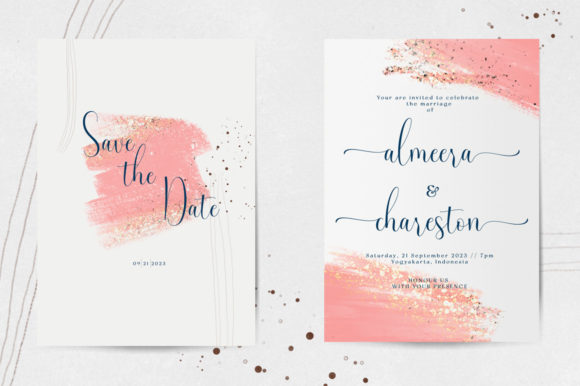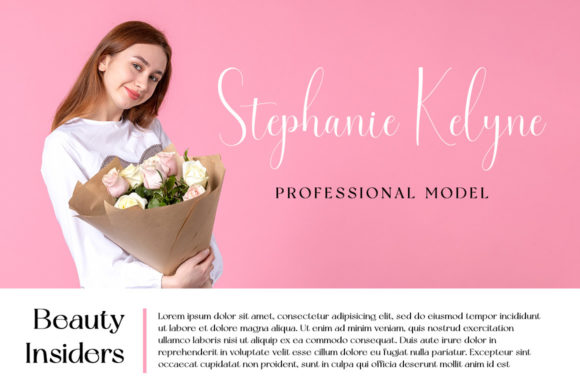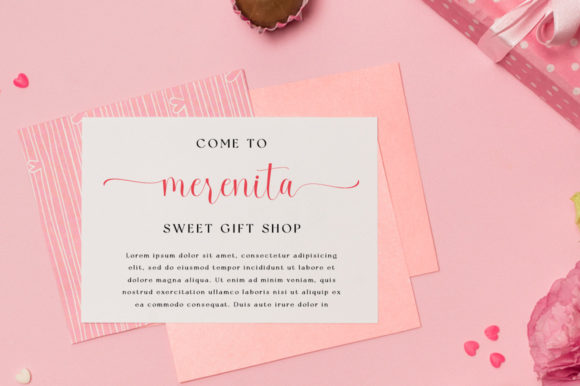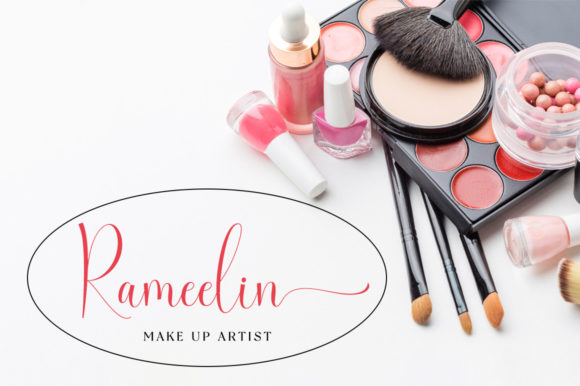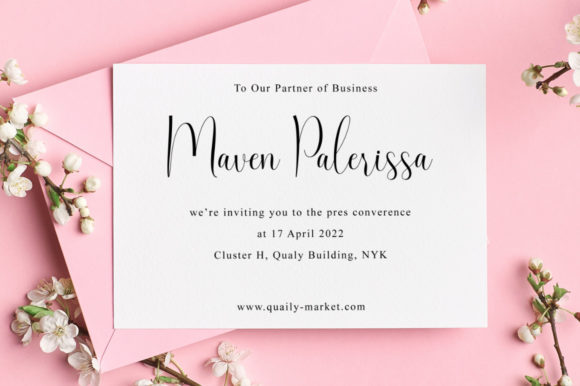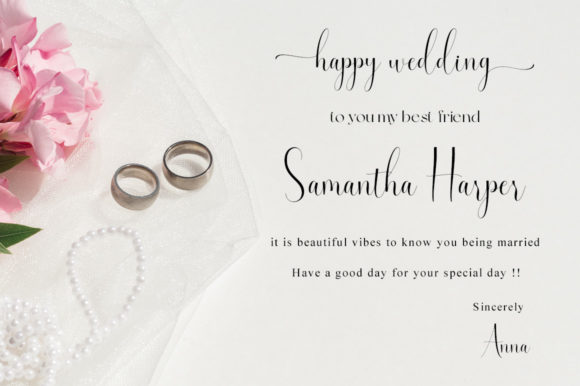
The Beauty of Aesthetic Font: Elevate Your Designs with Elegance
In the world of typography, few fonts manage to capture the essence of elegance and sophistication as effortlessly as Aesthetic. This distinct, graceful script font has been turning heads with its ravishing style, making it a go-to choice for designers and crafters looking to add a touch of luxury to their creations. In this article, we’ll delve into the beauty of Aesthetic Font, its unique features, and how you can harness its power to create stunning designs.
What is Aesthetic Font?
Aesthetic Font is a beautifully crafted script font that exudes elegance and refinement. Its flowing lines, intricate swashes, and delicate curves make it perfect for a wide range of design applications, from branding and advertising to packaging and stationery. Whether you’re looking to create a sophisticated logo, a stylish poster, or a charming invitation, Aesthetic Font is sure to impress.
The Power of PUA Encoding
One of the standout features of Aesthetic Font is its PUA (Private Use Area) encoding. This means that you can access all of the font’s glyphs and swashes with ease, giving you unparalleled creative control over your designs. With PUA encoding, you can effortlessly swap out characters, add flourishes, and experiment with different typography combinations to create truly unique and eye-catching designs.
Why Choose Aesthetic Font?
So, why should you choose Aesthetic Font for your next design project? Here are just a few compelling reasons:
- Elegance and sophistication: Aesthetic Font is the epitome of elegance and sophistication, making it perfect for high-end designs and luxury brands.
- Versatility: With its wide range of glyphs and swashes, Aesthetic Font can be used for a variety of design applications, from logos and branding to packaging and stationery.
- Easy to use: Thanks to its PUA encoding, Aesthetic Font is incredibly easy to use, even for designers with limited typography experience.
- Unique and eye-catching: Aesthetic Font is sure to turn heads with its unique and eye-catching design, making it perfect for designers looking to create something truly special.
How to Use Aesthetic Font
Using Aesthetic Font is incredibly straightforward. Here are a few tips to get you started:
- Experiment with different glyphs and swashes: With PUA encoding, you can easily access all of the font’s glyphs and swashes. Experiment with different combinations to create unique and eye-catching designs.
- Pair with complementary fonts: Aesthetic Font pairs beautifully with a range of complementary fonts. Experiment with different pairings to create visually striking typography combinations.
- Pay attention to kerning and spacing: As with any font, kerning and spacing are crucial to creating beautiful typography. Take the time to adjust these settings to ensure your text looks its best.
Design Ideas with Aesthetic Font
Aesthetic Font is incredibly versatile, making it perfect for a wide range of design applications. Here are a few ideas to get you started:
- Logo design: Create a sophisticated logo for a luxury brand or business using Aesthetic Font.
- Wedding invitations: Use Aesthetic Font to create beautiful and elegant wedding invitations that set the tone for a special day.
- Packaging design: Add a touch of luxury to your packaging designs with Aesthetic Font, perfect for high-end brands and products.
- Stationery: Create stylish and sophisticated stationery, including letterheads, business cards, and more, using Aesthetic Font.
| Author | fanastudio |
In conclusion, Aesthetic Font is a stunning script font that is sure to elevate your designs with its elegance and sophistication. With its PUA encoding, versatility, and ease of use, it’s the perfect choice for designers and crafters looking to create beautiful and eye-catching designs. Whether you’re working on a logo, invitation, packaging design, or stationery, Aesthetic Font is sure to impress. So why not give it a try and see the beauty of Aesthetic Font for yourself?